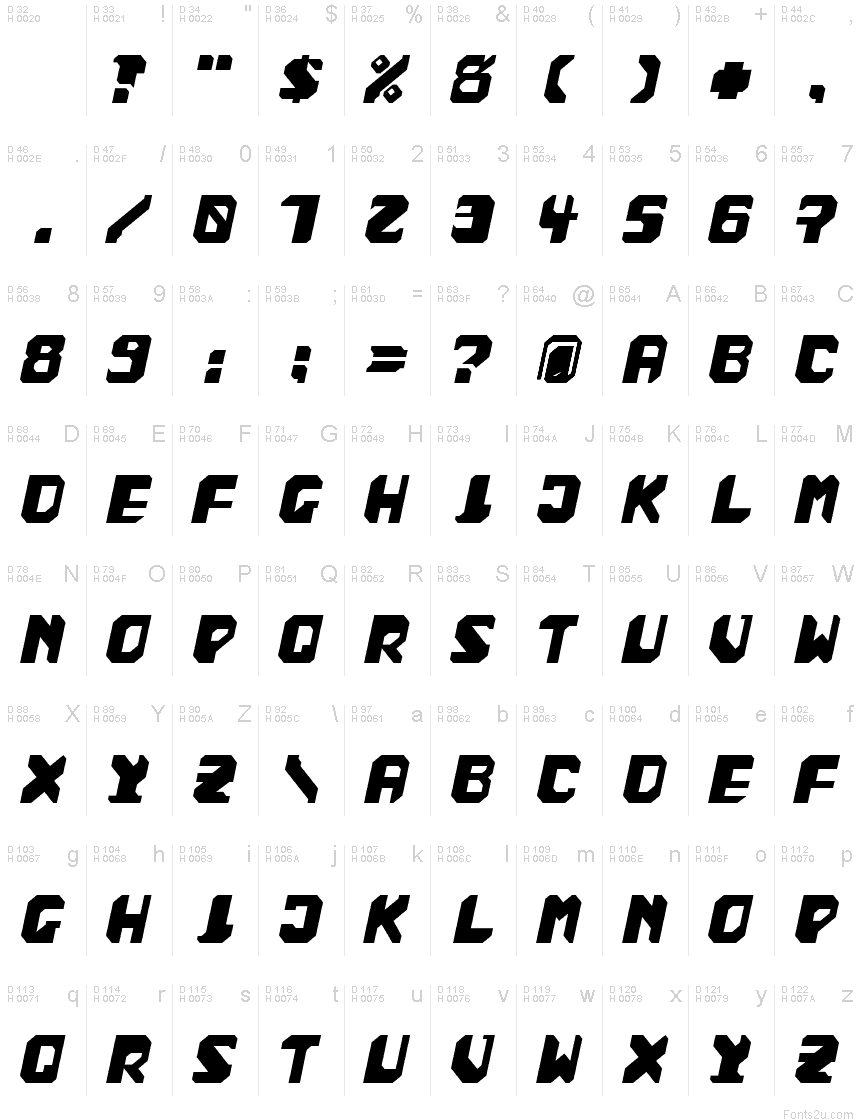
bad fag
Bad Fag font by Helge Barske is a free techno display typeface with a fierce forward lean and chunky, faceted shapes that feel cut from solid metal. Each letter tilts aggressively, with sharp corners and angular counters that give your text the sense of motion you’d see on a racing stripe or a sci‑fi hull marking. The thick, black strokes land with real visual weight, so even short words hit like a logo.
Using Bad Fag, headlines snap into place on game covers, racing event posters, electronic music flyers, tech logos, sci‑fi movie titles, and bold esports branding. The tight rhythm and geometric slant keep everything feeling fast and mechanical, especially at large sizes. For longer supporting text, pair this free font with a clean, neutral sans serif set smaller to let bad fag handle the loud, high-impact moments.